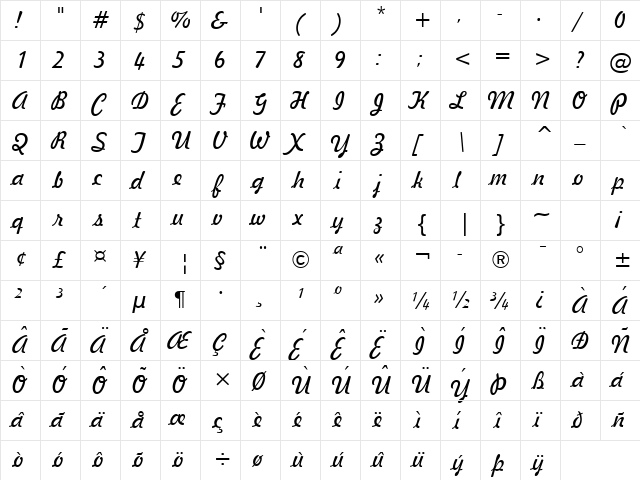
GE Ballantine Script Normal
Design Context for GE Ballantine Script Typeface
GE Ballantine Script flows with the natural rhythm of handwritten lettering, making it ideal for designs that call for warmth and personal expression.
Font Pairing: Combine GE Ballantine Script with a simple geometric sans for maximum contrast — the tension between flowing curves and clean structure is a classic typographic pairing.
Pro Tip: Pair GE Ballantine Script with a clean sans-serif for supporting text. The contrast between fluid script and geometric structure creates an elegant typographic hierarchy.